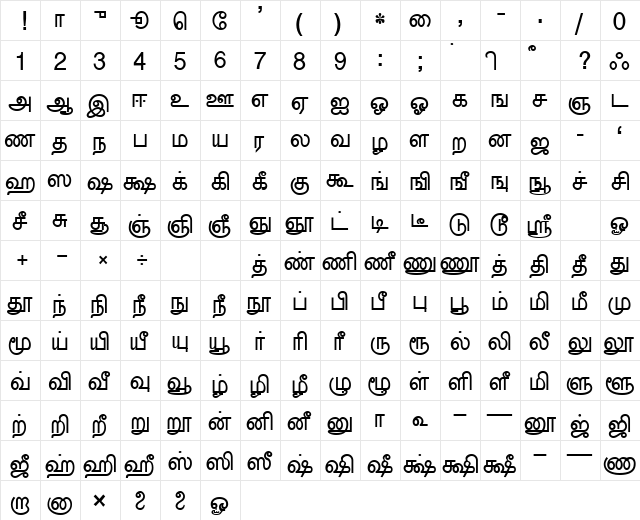
AkrutiTmlBarathi Bold
Design Context for AkrutiTmlBarathi Typeface
AkrutiTmlBarathi is a composed and adaptable typeface that performs quietly and consistently across a wide range of design contexts. Its bold stroke weight gives it real presence on the page.